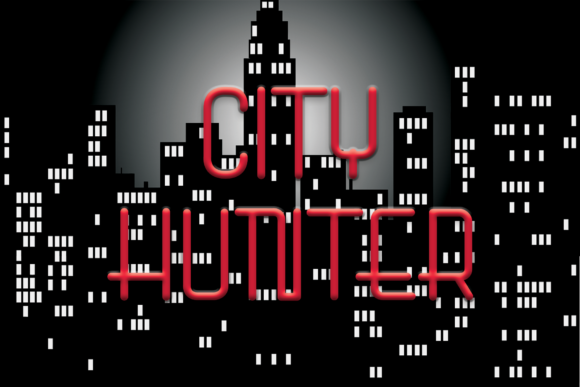
Introducing City Hunter Font, a display font family that will ignite your creativity and elevate your designs to new heights. This modern and minimalistic font is the perfect choice for those seeking a unique touch to their web designs, business cards, t-shirts, and more.
With its clean lines and sharp angles, City Hunter Font exudes a sense of sophistication and elegance. Its versatility makes it suitable for a wide range of applications, from formal presentations to casual social media posts. Whether you're a seasoned designer or just starting out, City Hunter Font is the perfect addition to your font collection.
Immerse yourself in the world of City Hunter Font and let your imagination soar. Use it to create eye-catching headlines that demand attention, or craft elegant body text that flows effortlessly. This font is a storyteller, capable of conveying emotions and ideas with its every curve and stroke.
Unleash the power of City Hunter Font and transform your designs into masterpieces. Its modern aesthetic and timeless appeal will leave a lasting impression on your audience, helping you stand out from the crowd and achieve your creative goals.